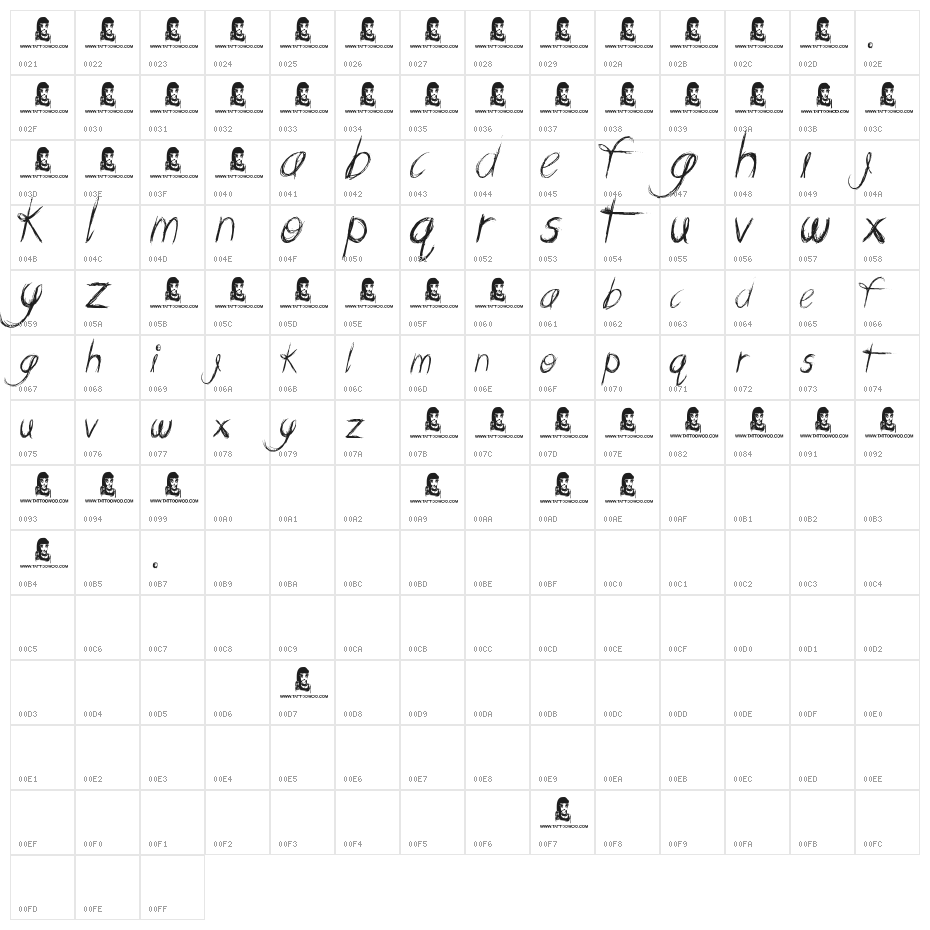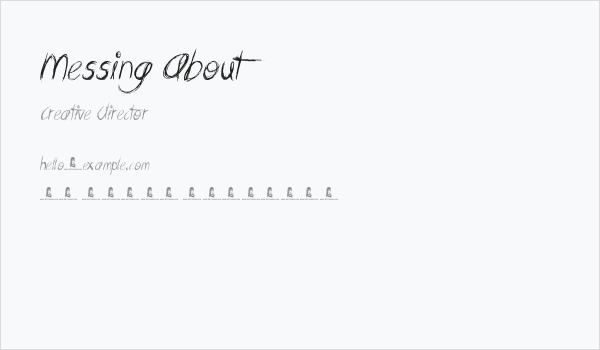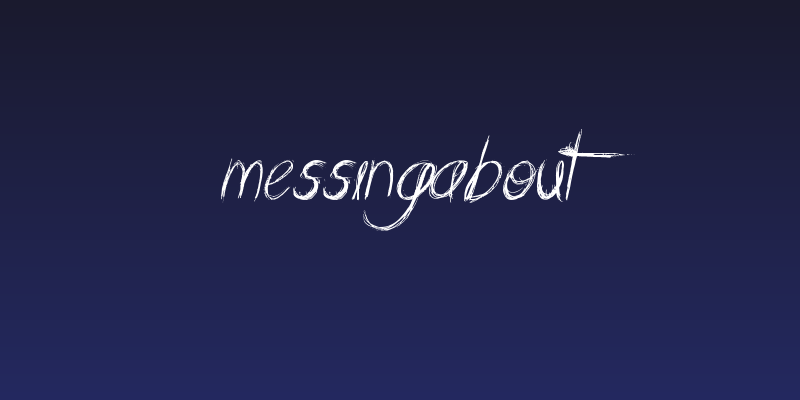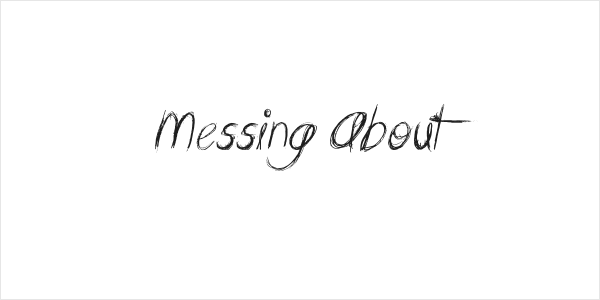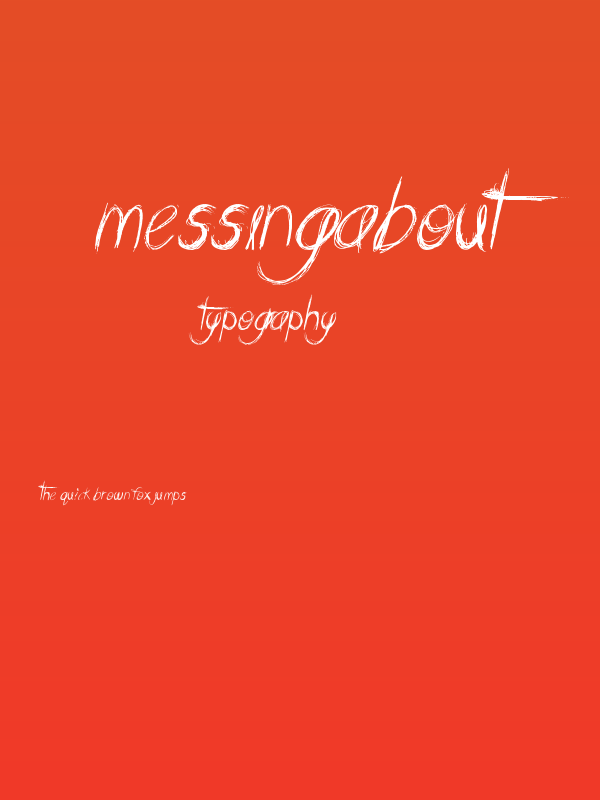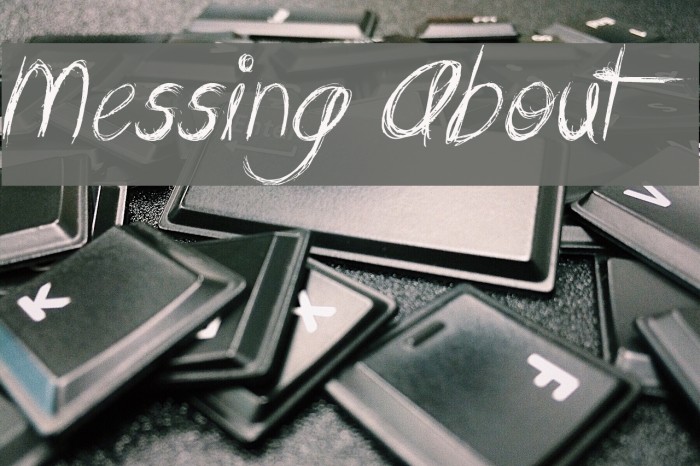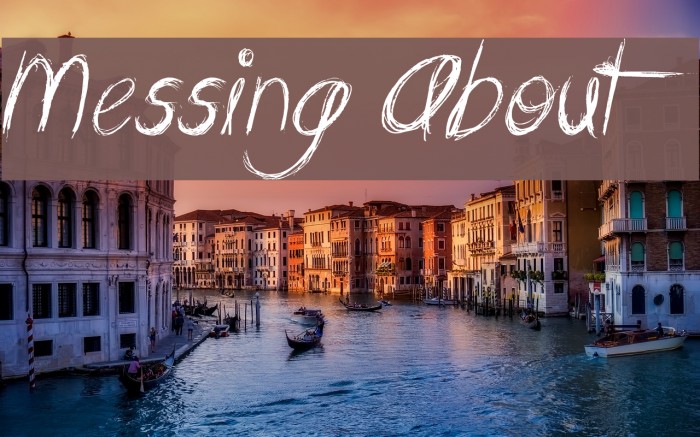
Messing About Font
Messing About Description
This font features a dynamic and expressive style, characterized by its brush-like strokes and fluid, handwritten appearance. The letters exhibit a sense of movement and energy, with varying stroke thickness that adds a textured, artistic feel. The uppercase and lowercase letters maintain a consistent style, with some letters featuring elongated ascenders and descenders, enhancing the font's dramatic flair. The overall design is bold and eye-catching, making it suitable for creative and artistic projects. The font's unique character is further emphasized by its irregular edges, giving it a raw and organic look.
| Use Case | Logos, Headlines, Artistic designs |
| Proposed Projects | Ideal for artistic projects, posters, album covers, and creative branding. |